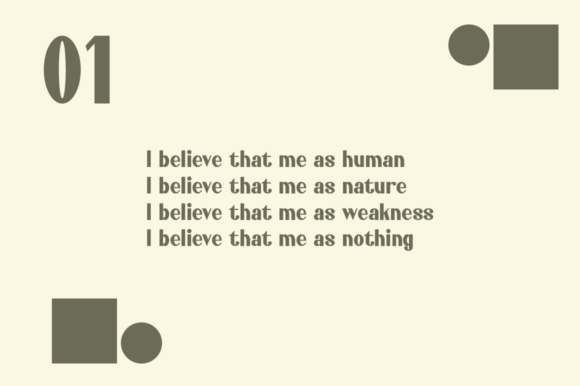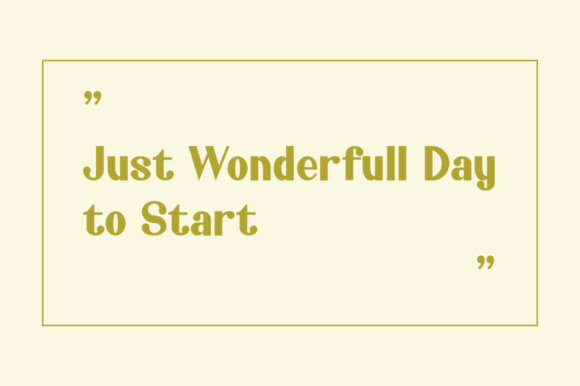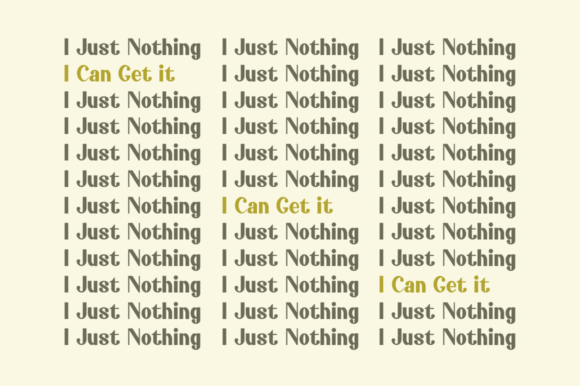
Introduction to Jahasyah Font
Jahasyah is a modern and sweet display font.
Masterfully designed to become a true favorite, this font has the potential to bring each of your creative ideas to the highest level .
Why Choose Jahasyah Font?
Jahasyah Font offers exceptional quality and versatility, making it a valuable addition to your design toolkit. Whether you’re creating for personal projects or commercial use, Jahasyah Font delivers professional results.